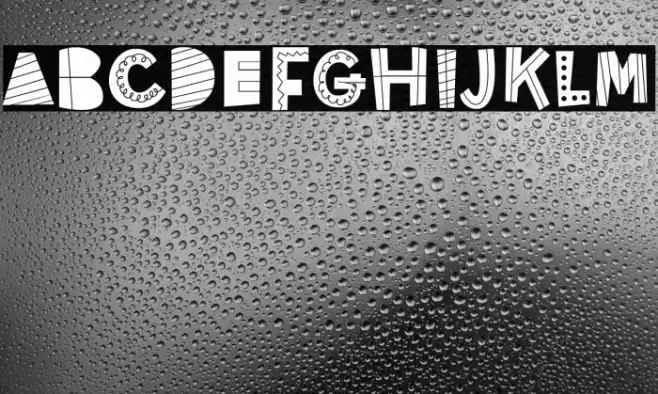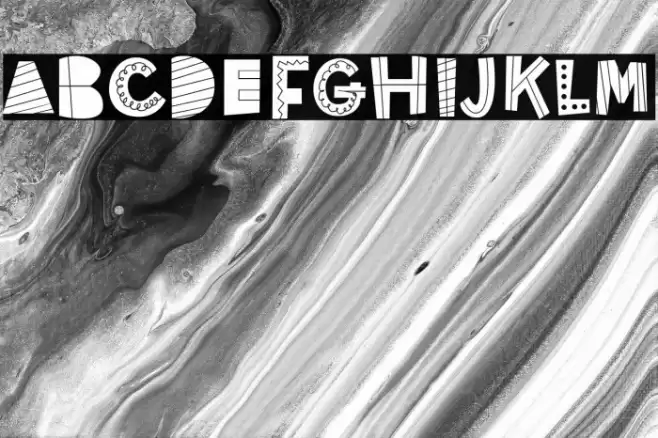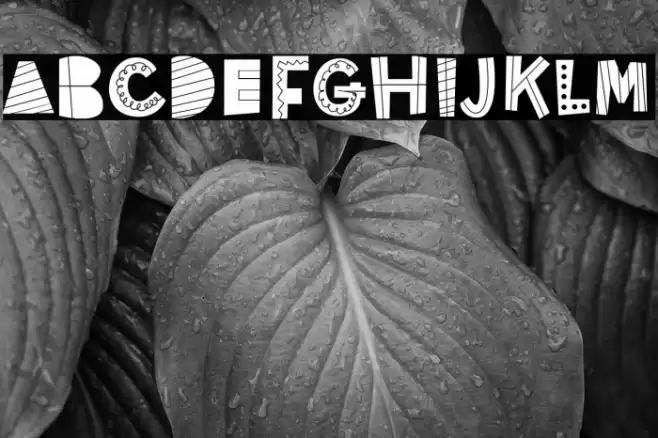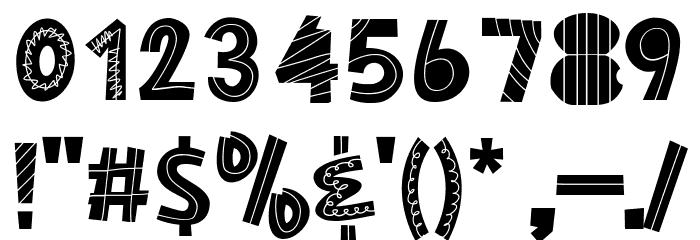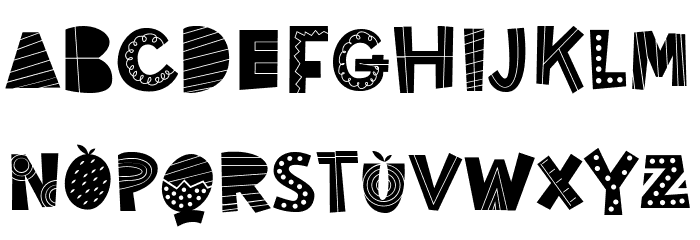
Honey cookies Font
Honey cookies Description
This playful and whimsical font features bold, decorative characters with unique patterns and textures. Each letter and number is adorned with distinct designs, such as stripes, dots, and swirls, giving it a lively and artistic appearance. The font's style is reminiscent of hand-drawn illustrations, making it ideal for creative projects. The characters are well-defined and maintain a consistent size, ensuring readability while adding a touch of fun. This font is perfect for projects that require a cheerful and eye-catching typeface.
A playful, decorative font with unique patterns and textures from Decorative fonts.
- Proposed Projects: Ideal for children's books, party invitations, playful branding, and creative posters.